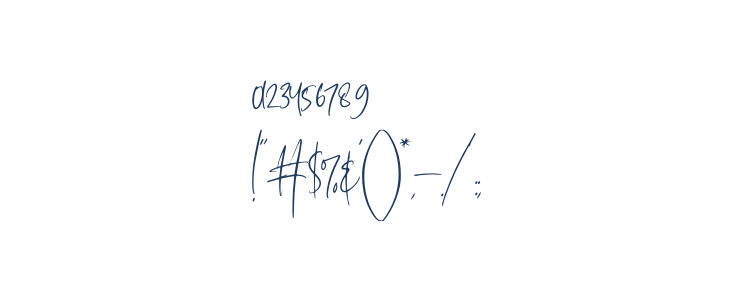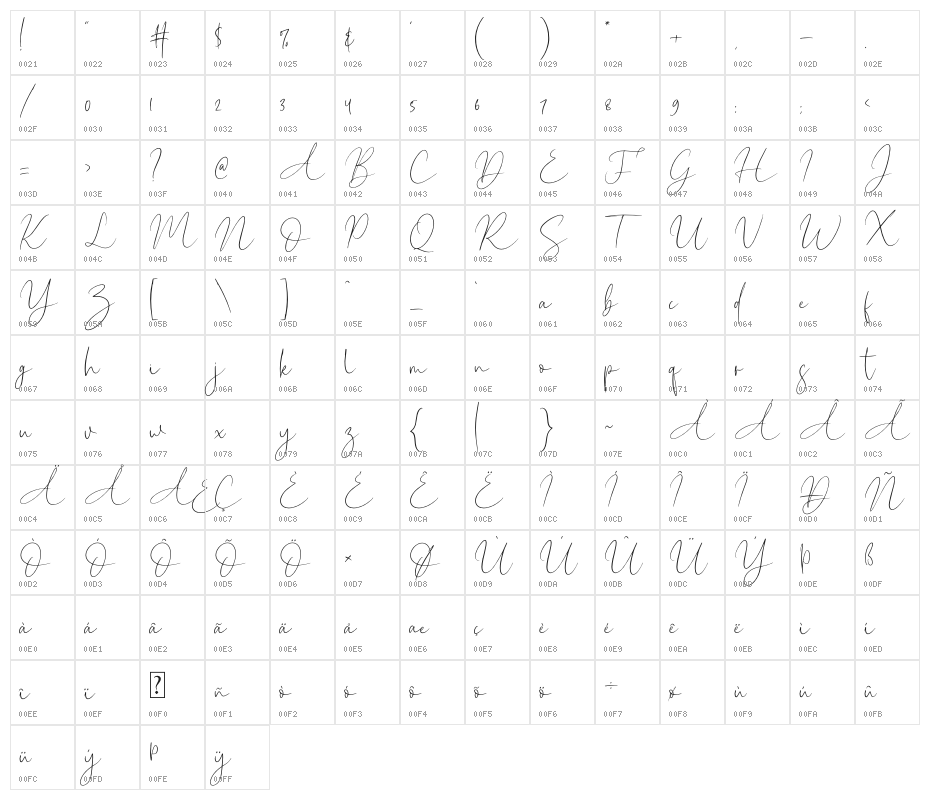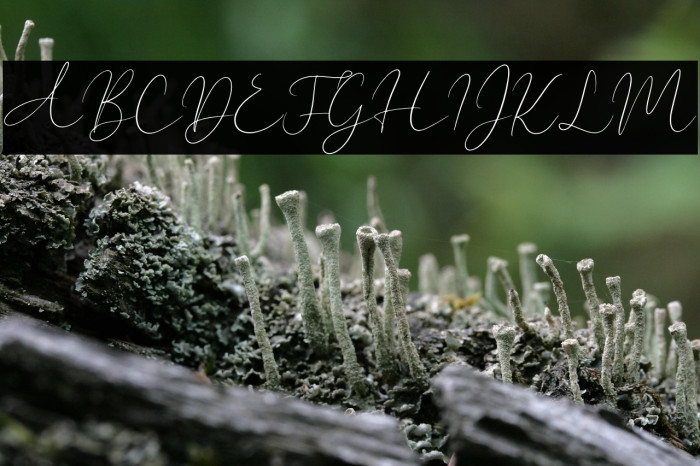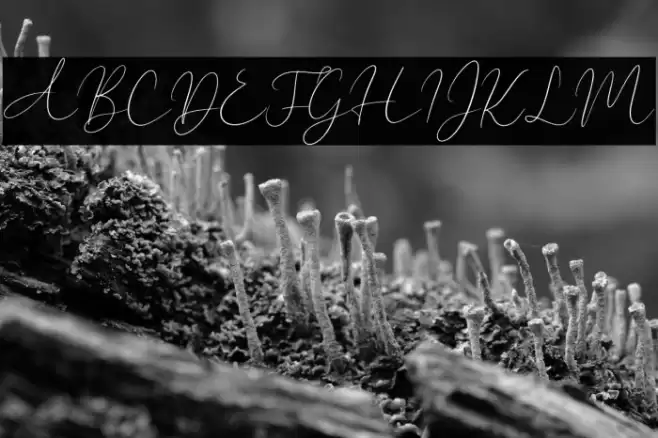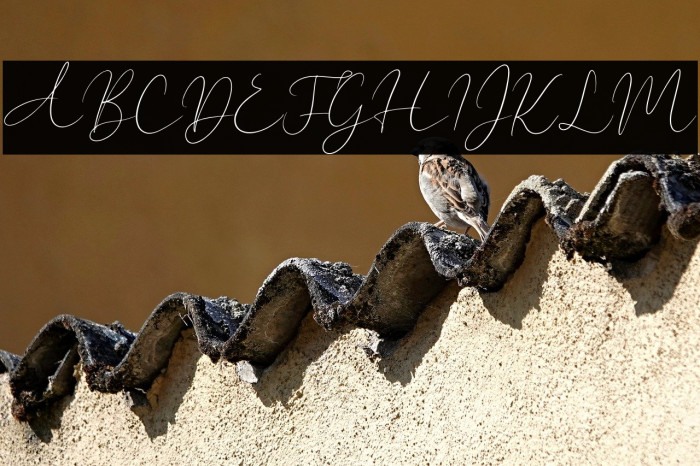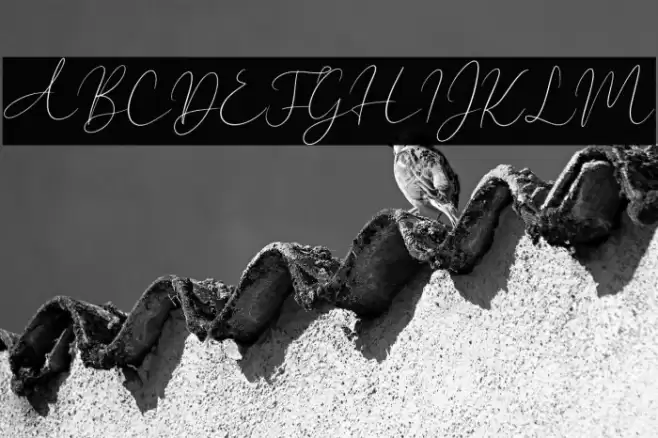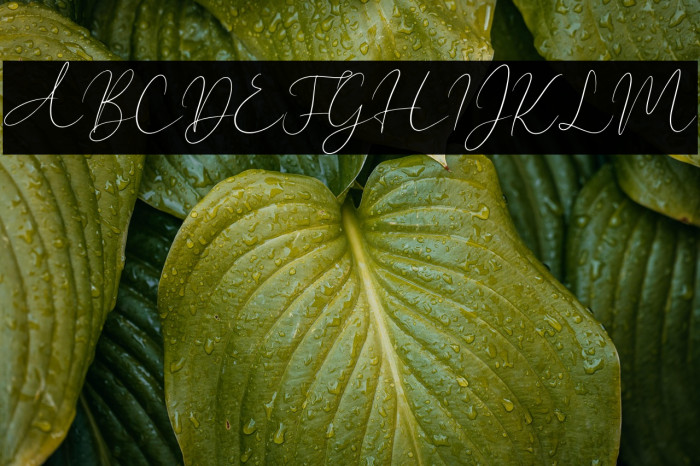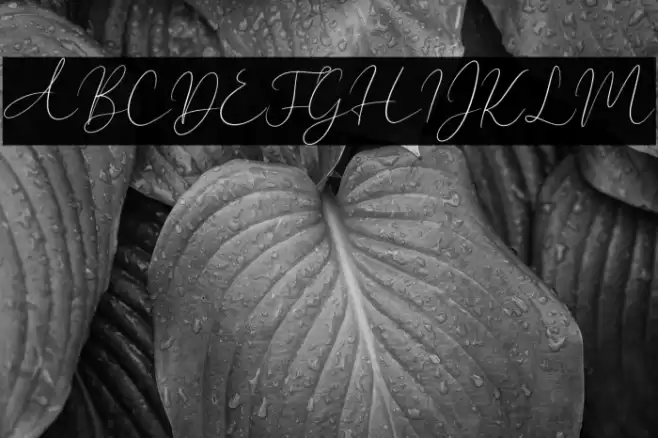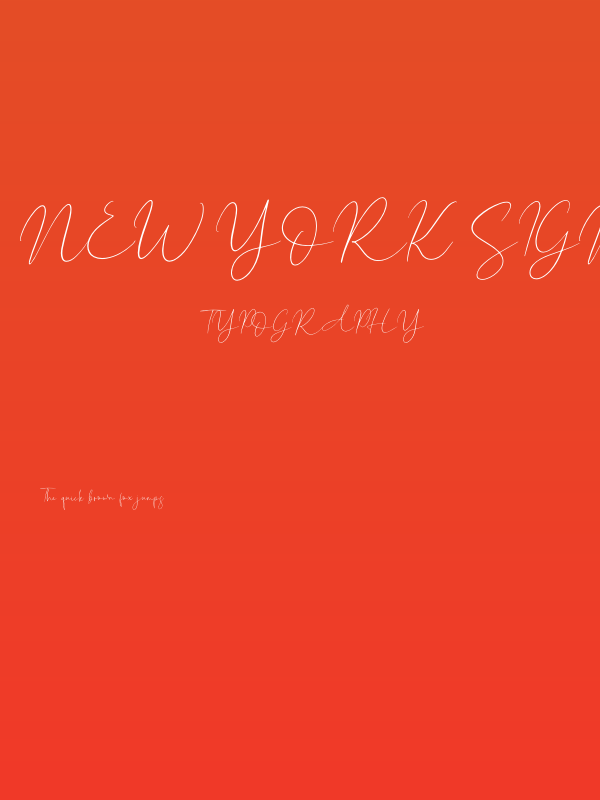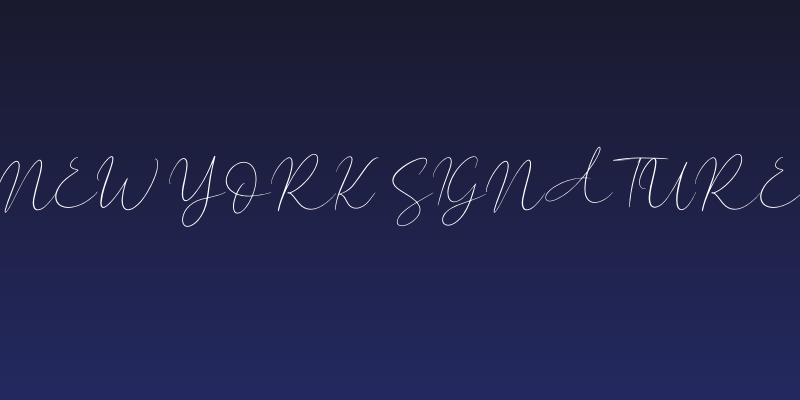
New York Signature Font
New York Signature Description
This font exudes elegance and sophistication with its fluid, cursive style. The letters are interconnected, mimicking the natural flow of handwriting, which adds a personal and intimate touch. The uppercase letters are slightly more embellished, with graceful loops and curves, while the lowercase letters maintain a consistent rhythm and balance. The numbers and special characters are designed to complement the alphabet, maintaining the same flowing aesthetic. This font is perfect for projects that require a touch of class and personality, such as invitations, branding, and personal correspondence.
| Use Case | Logos, Invitations, Personal Correspondence |
| Proposed Projects | Ideal for wedding invitations, personal branding, and elegant stationery. |